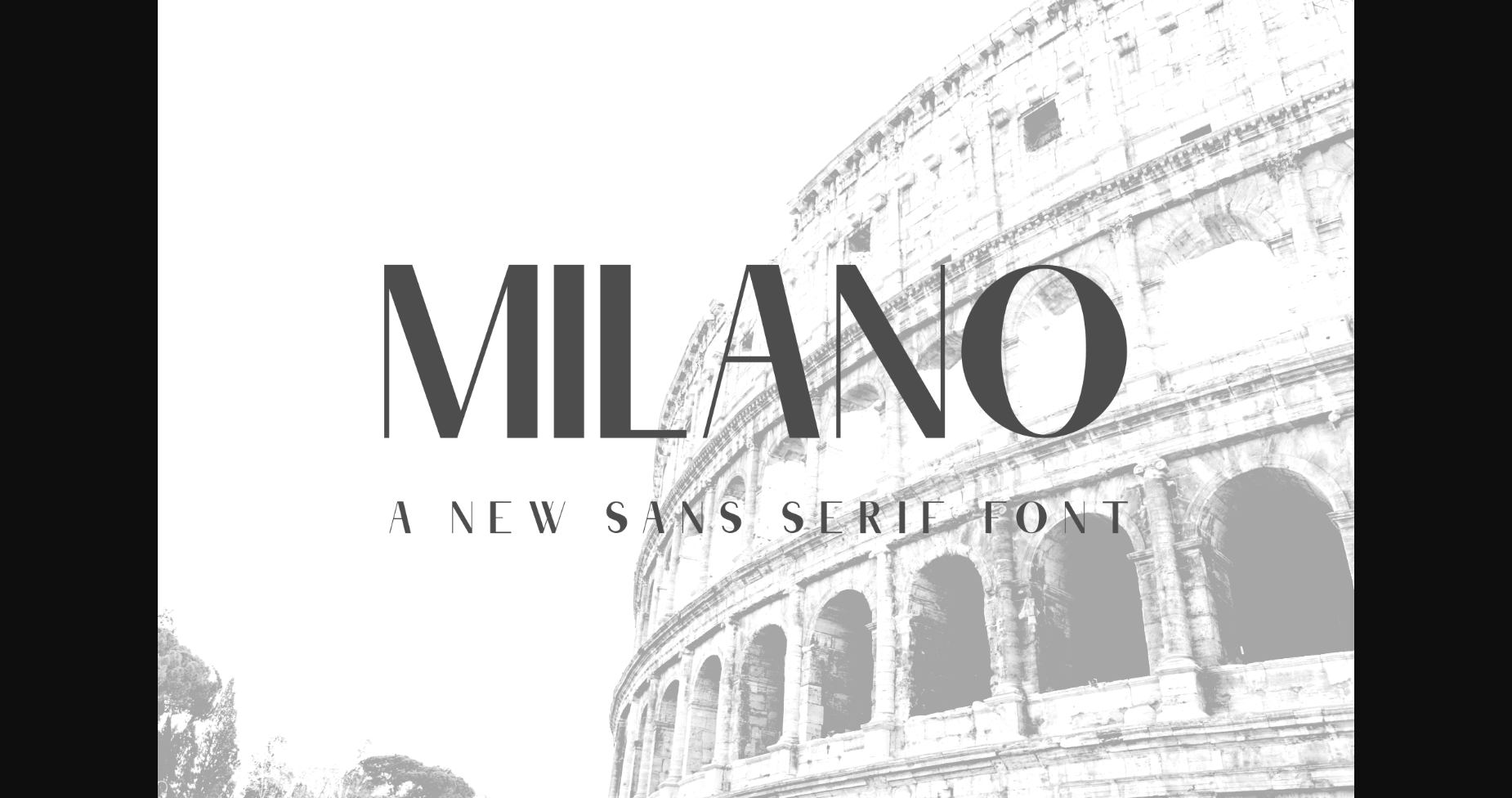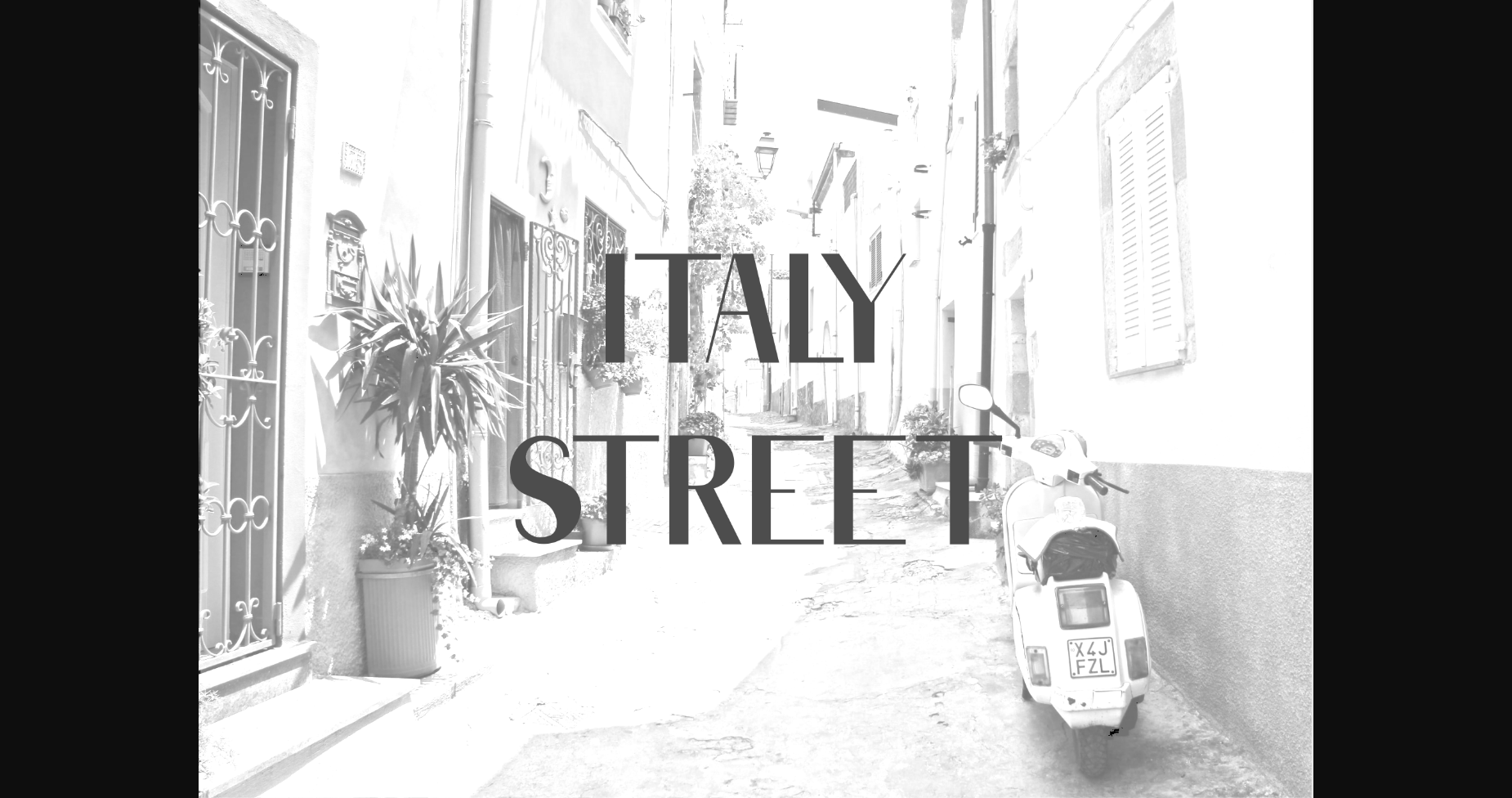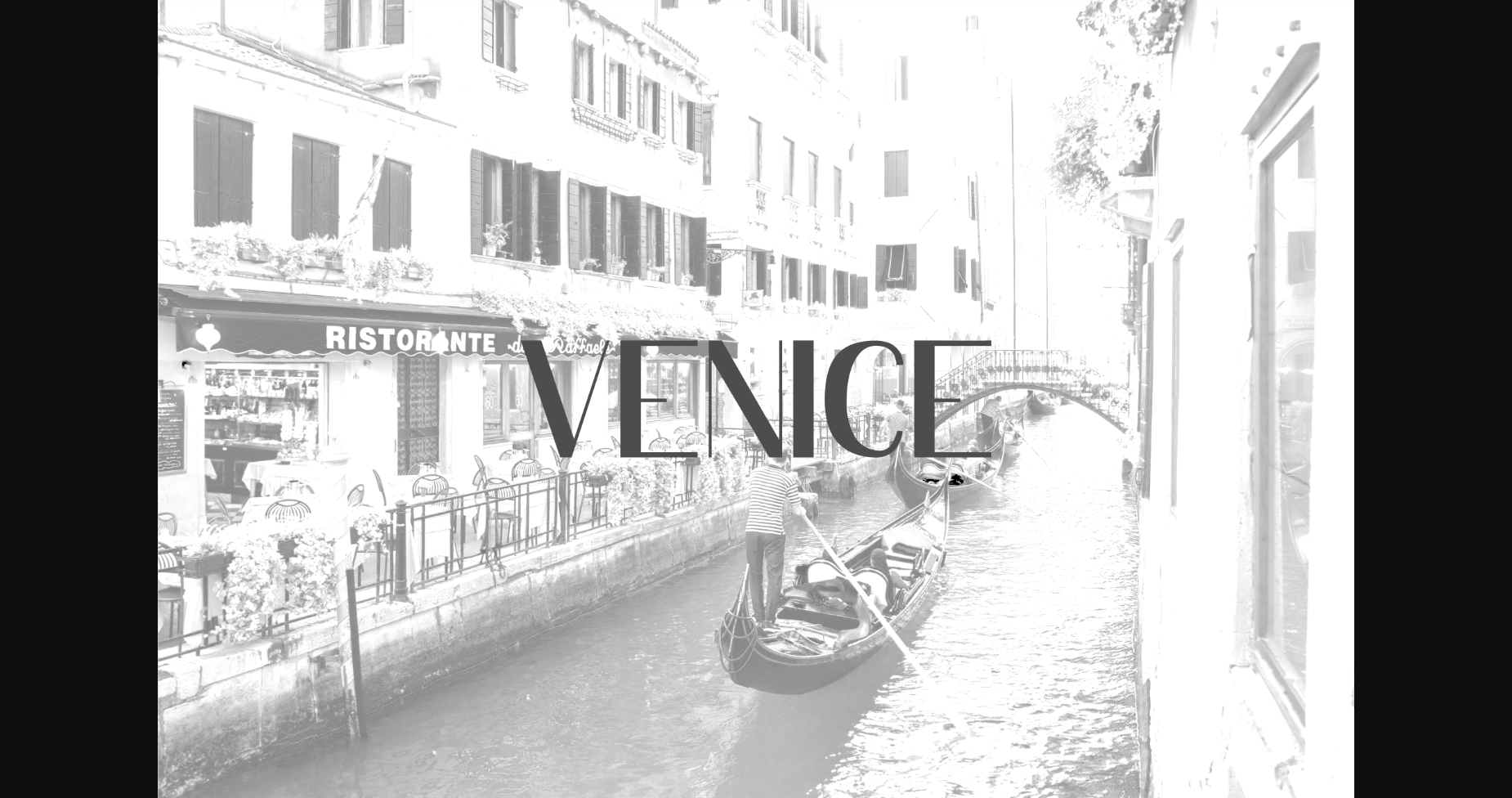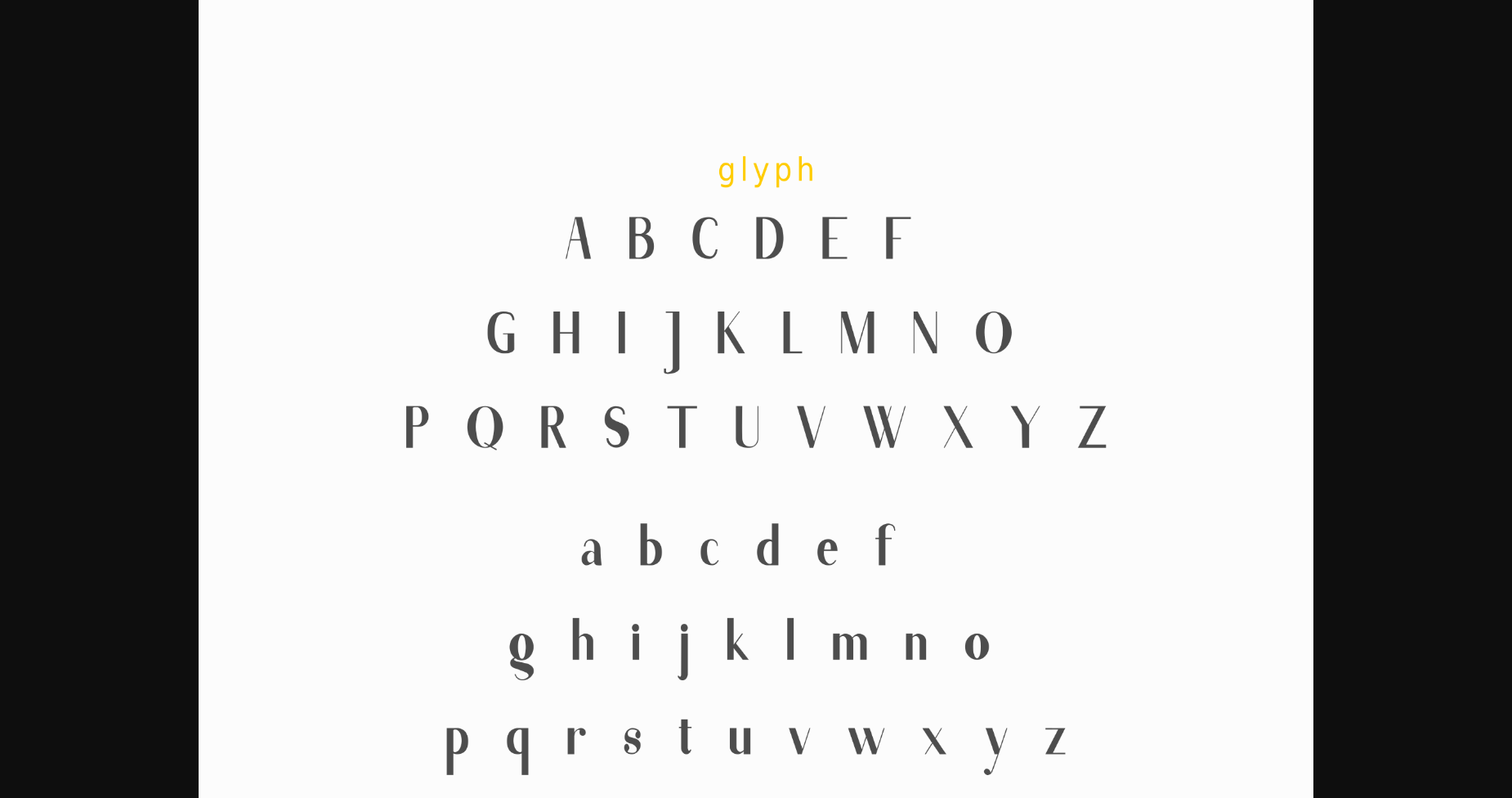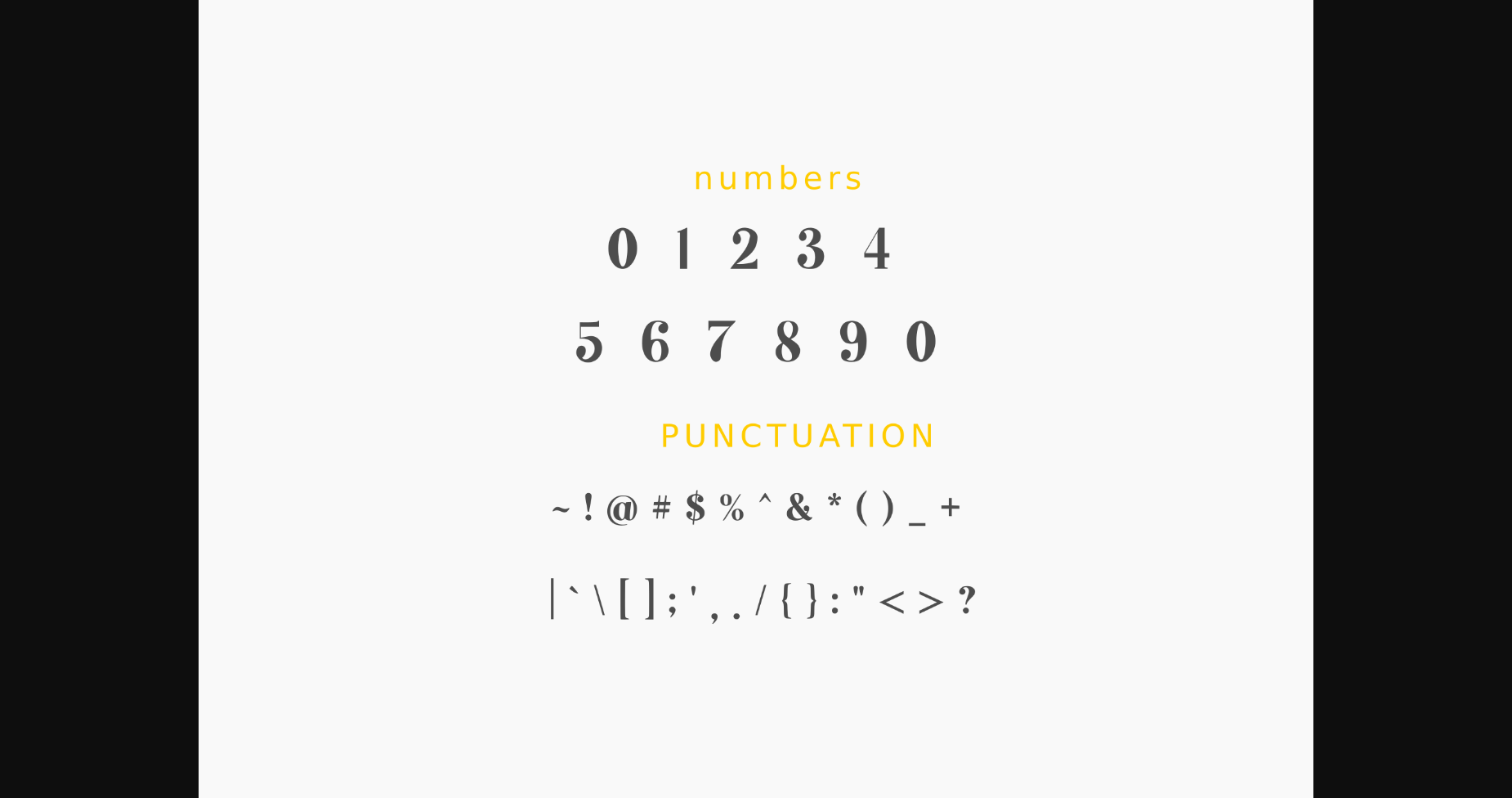
Milano is an elegant and assertive sans serif font. Featuring characters that dance along the baseline, this font will add a luxury spark to any design project that you wish to create!